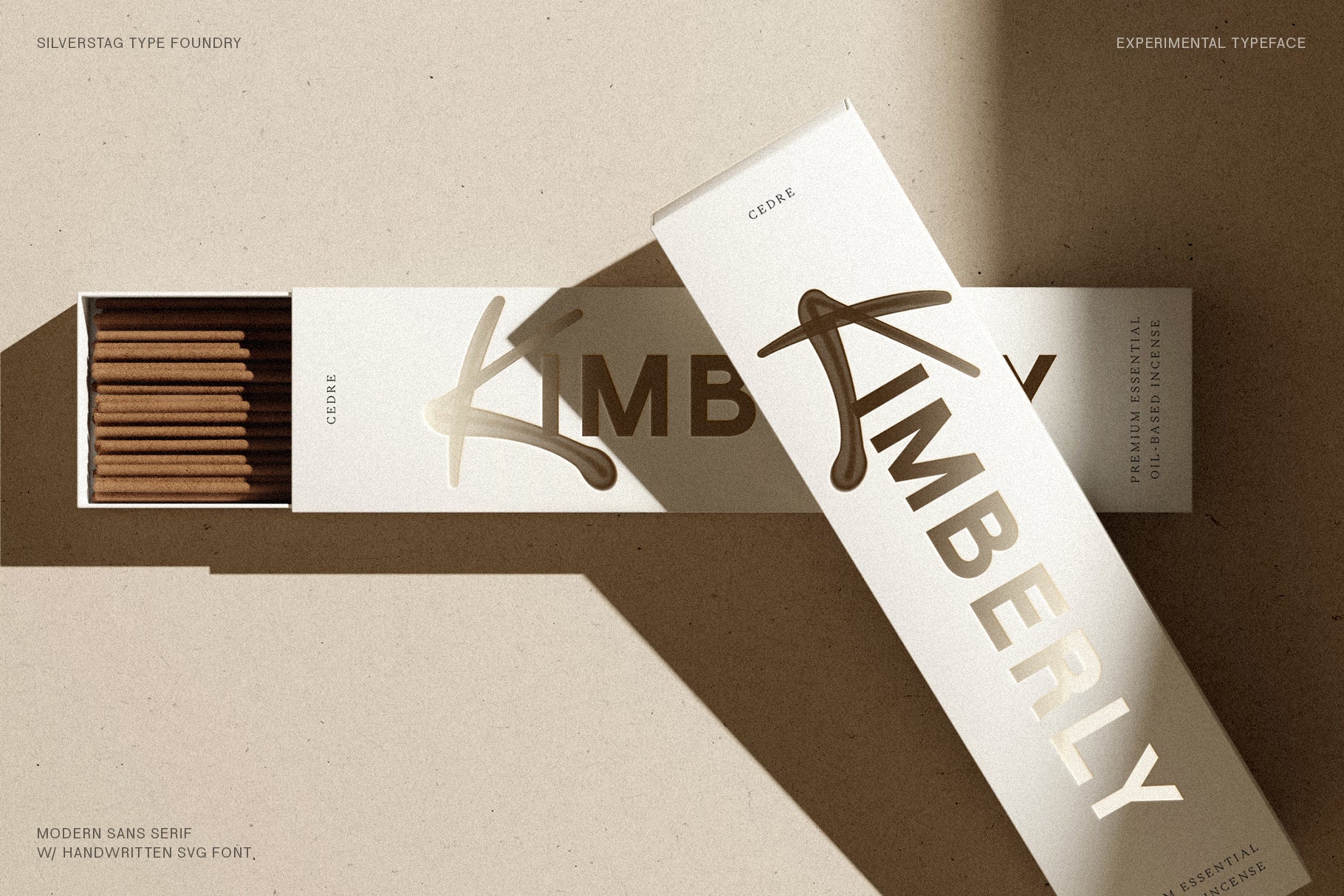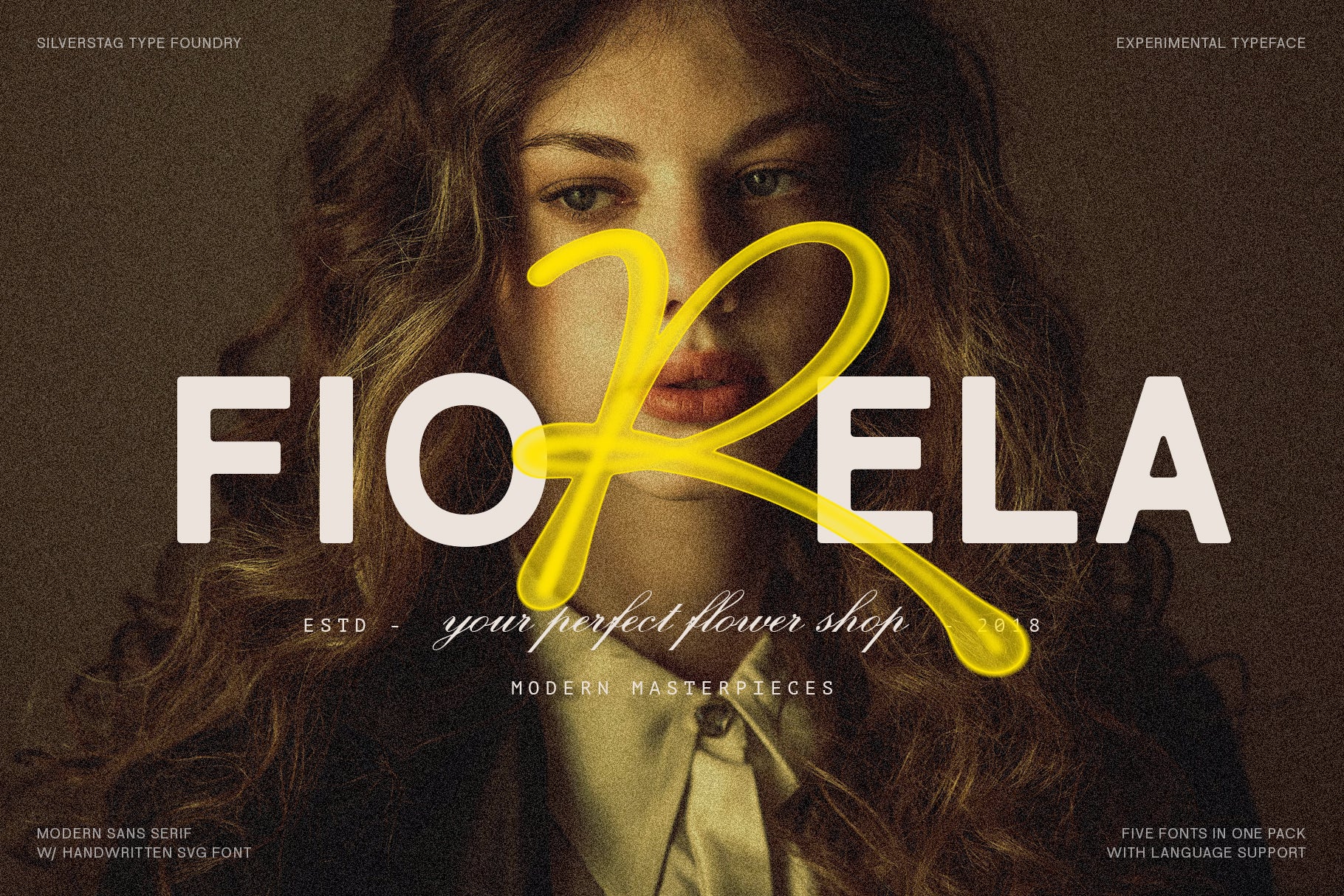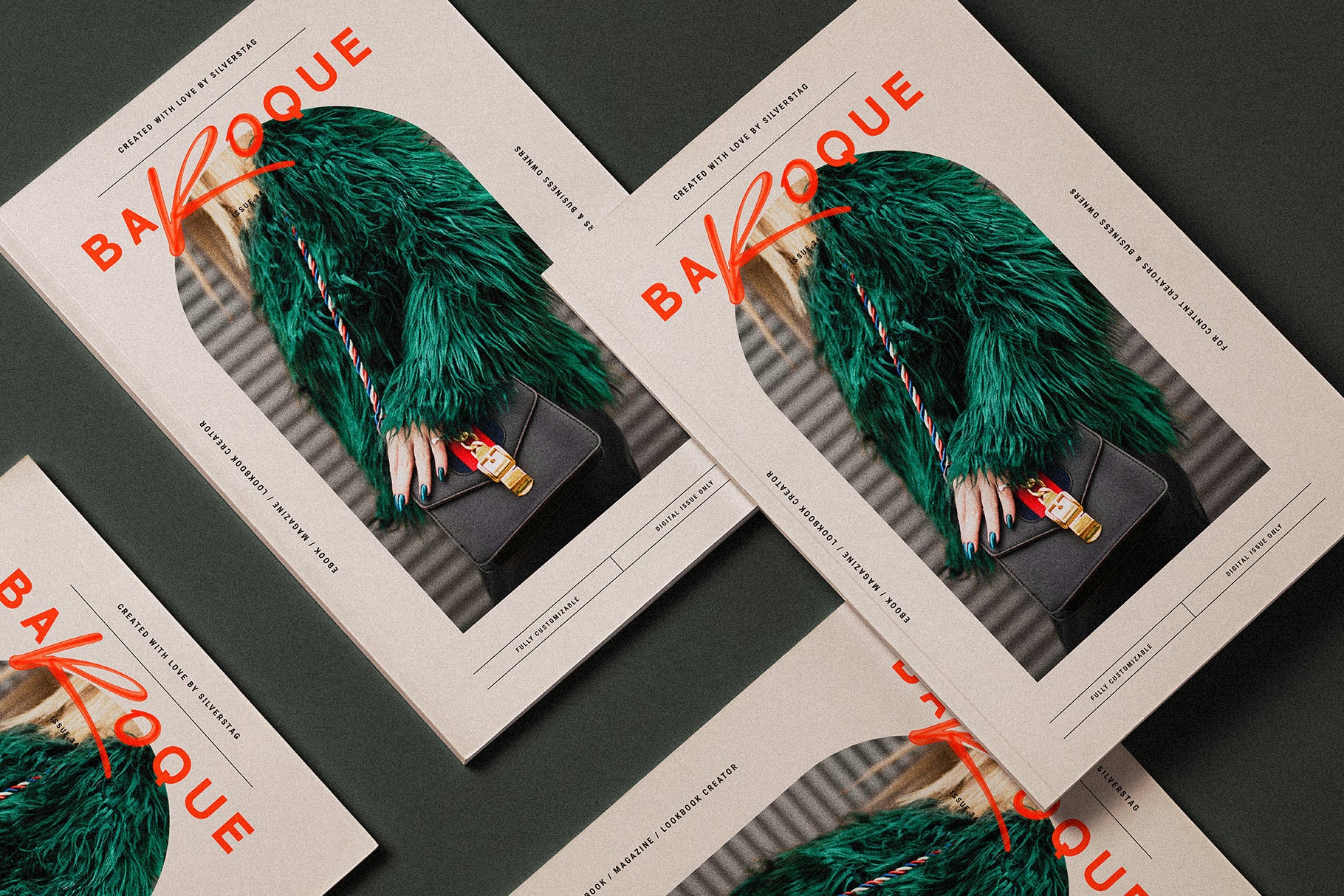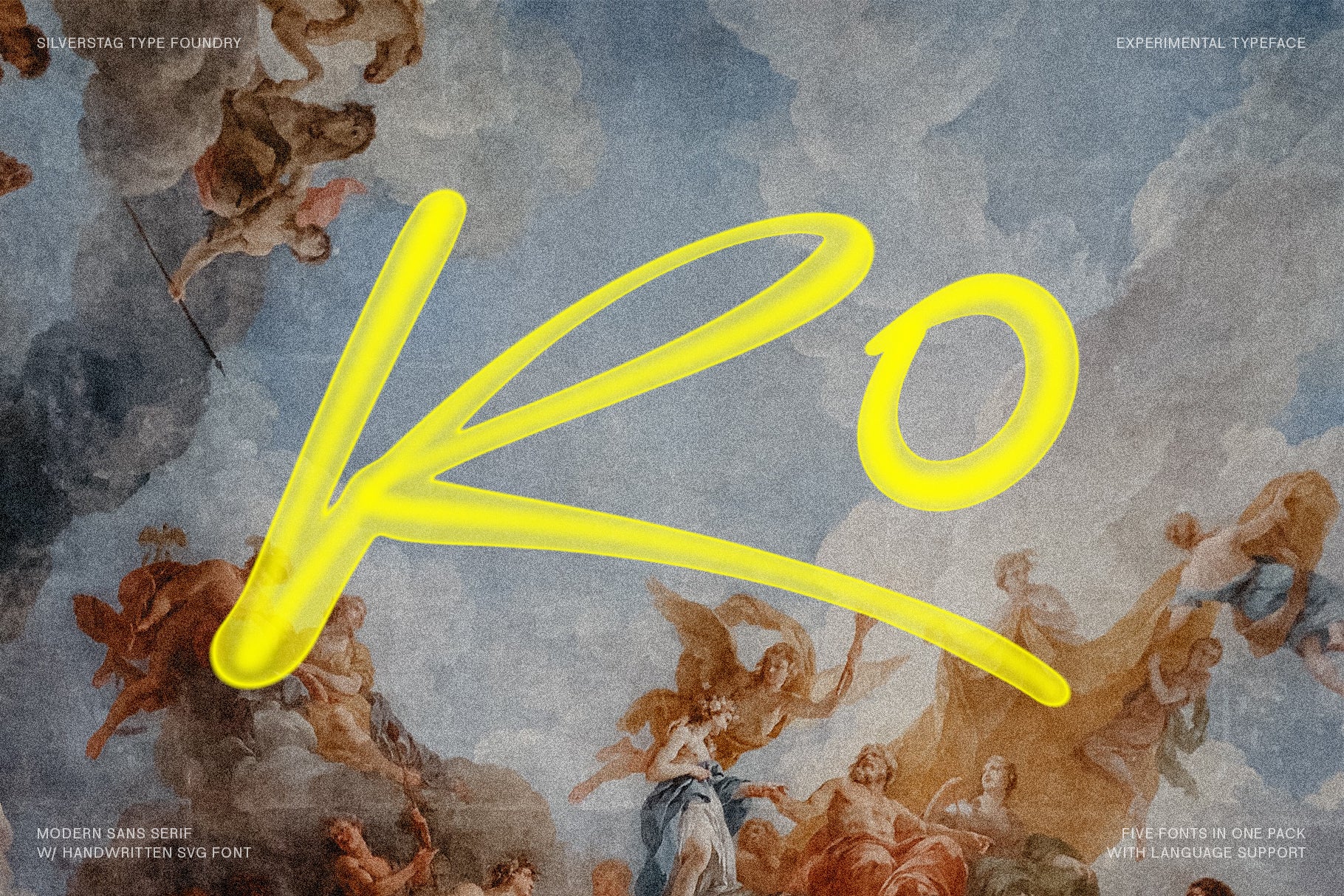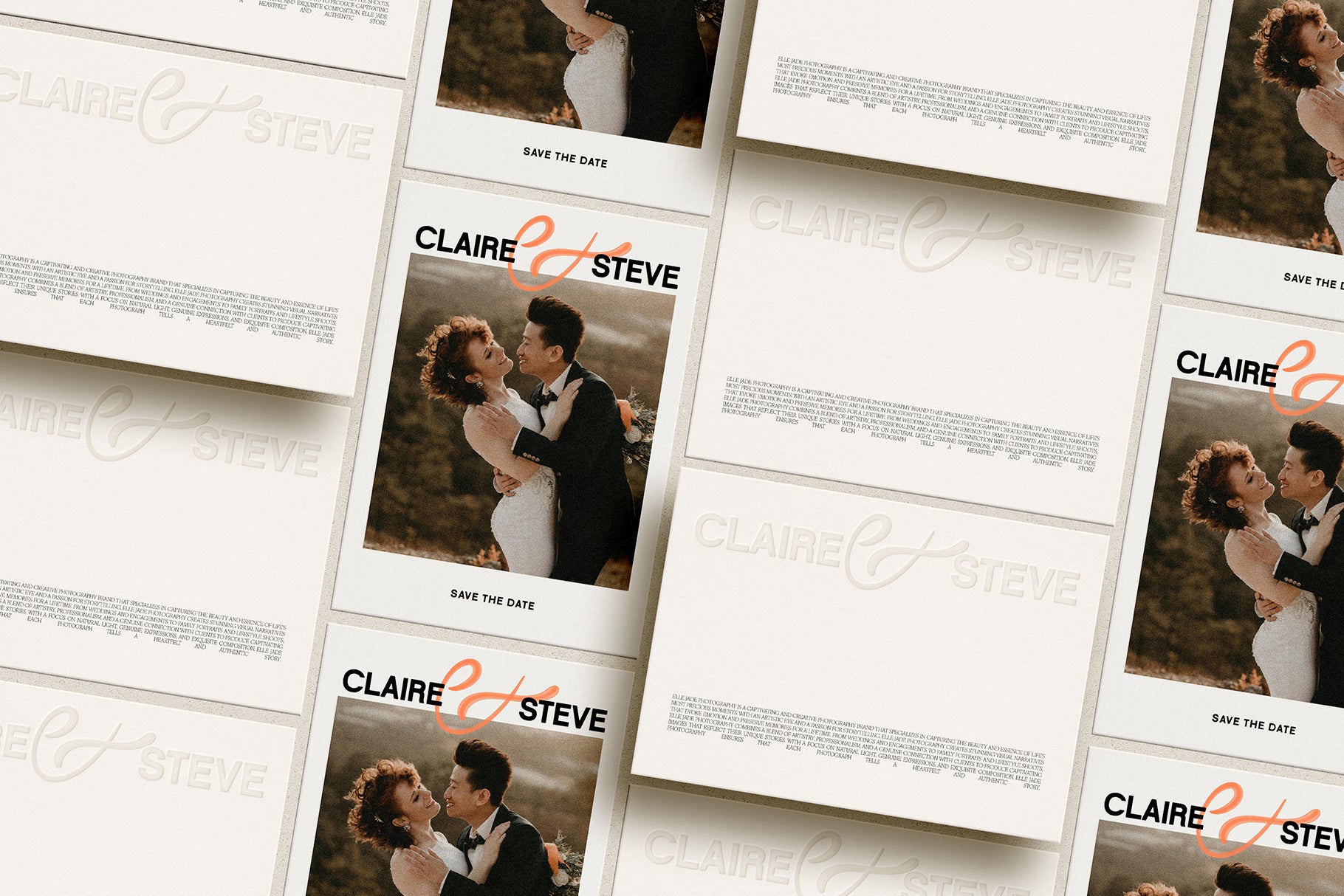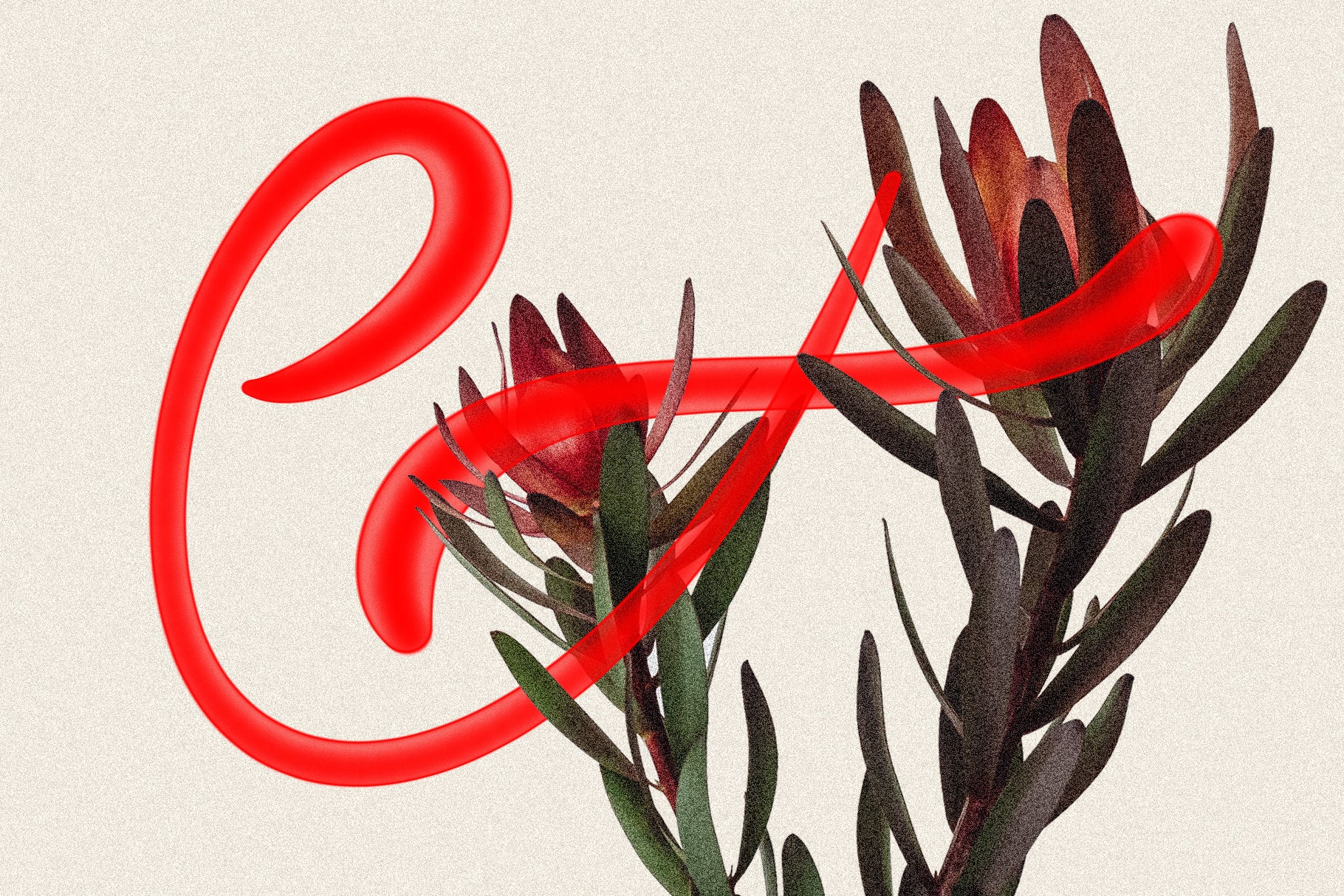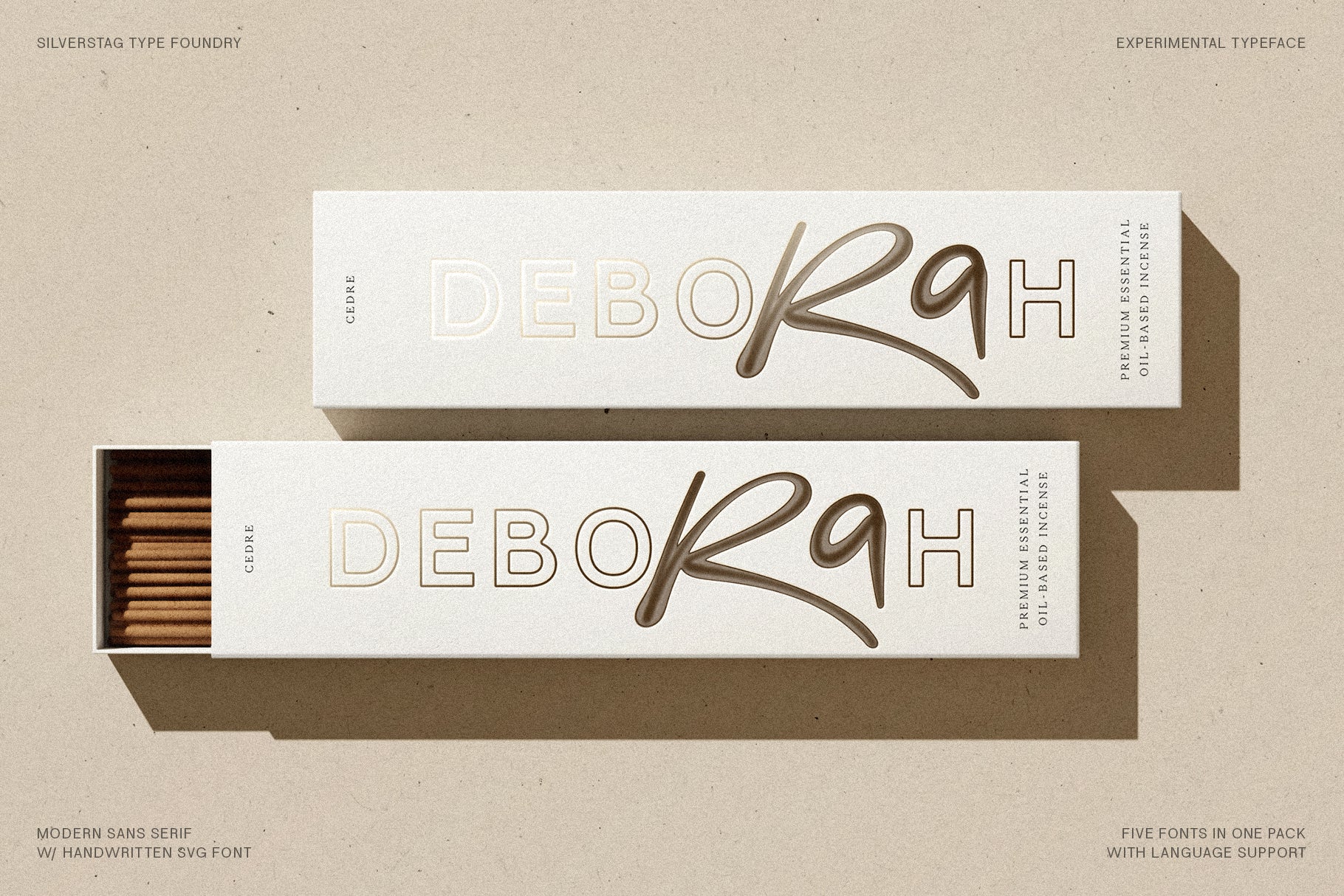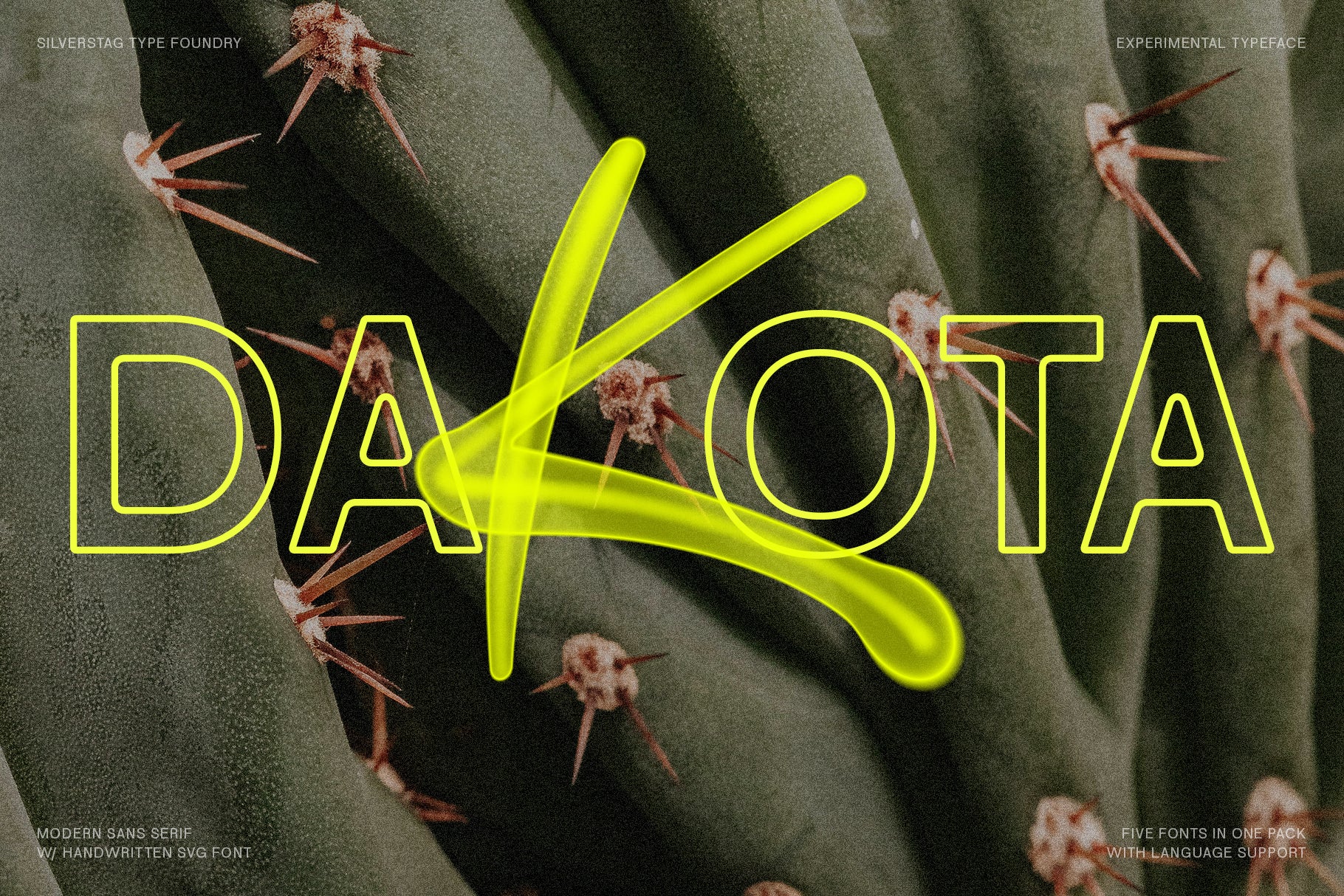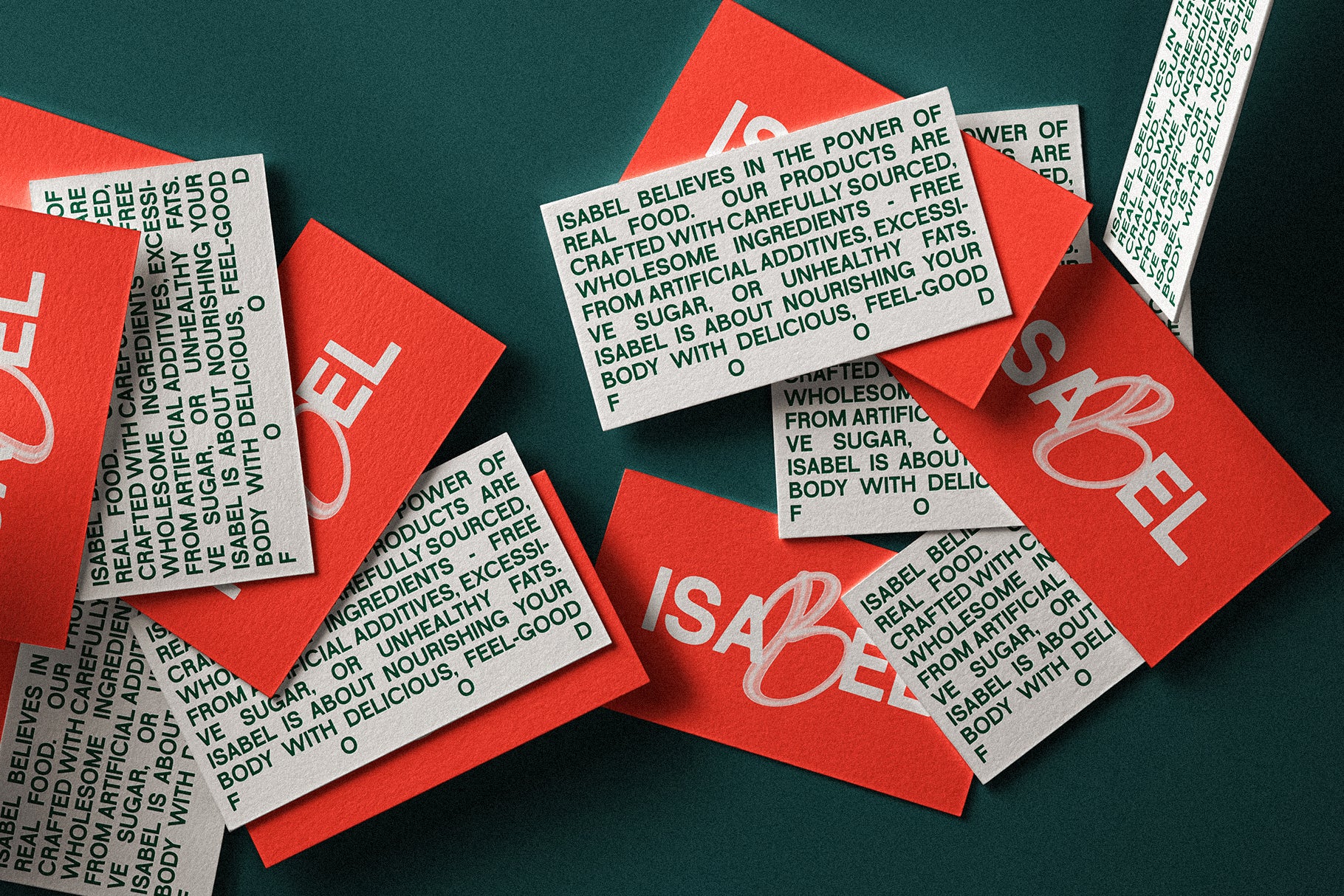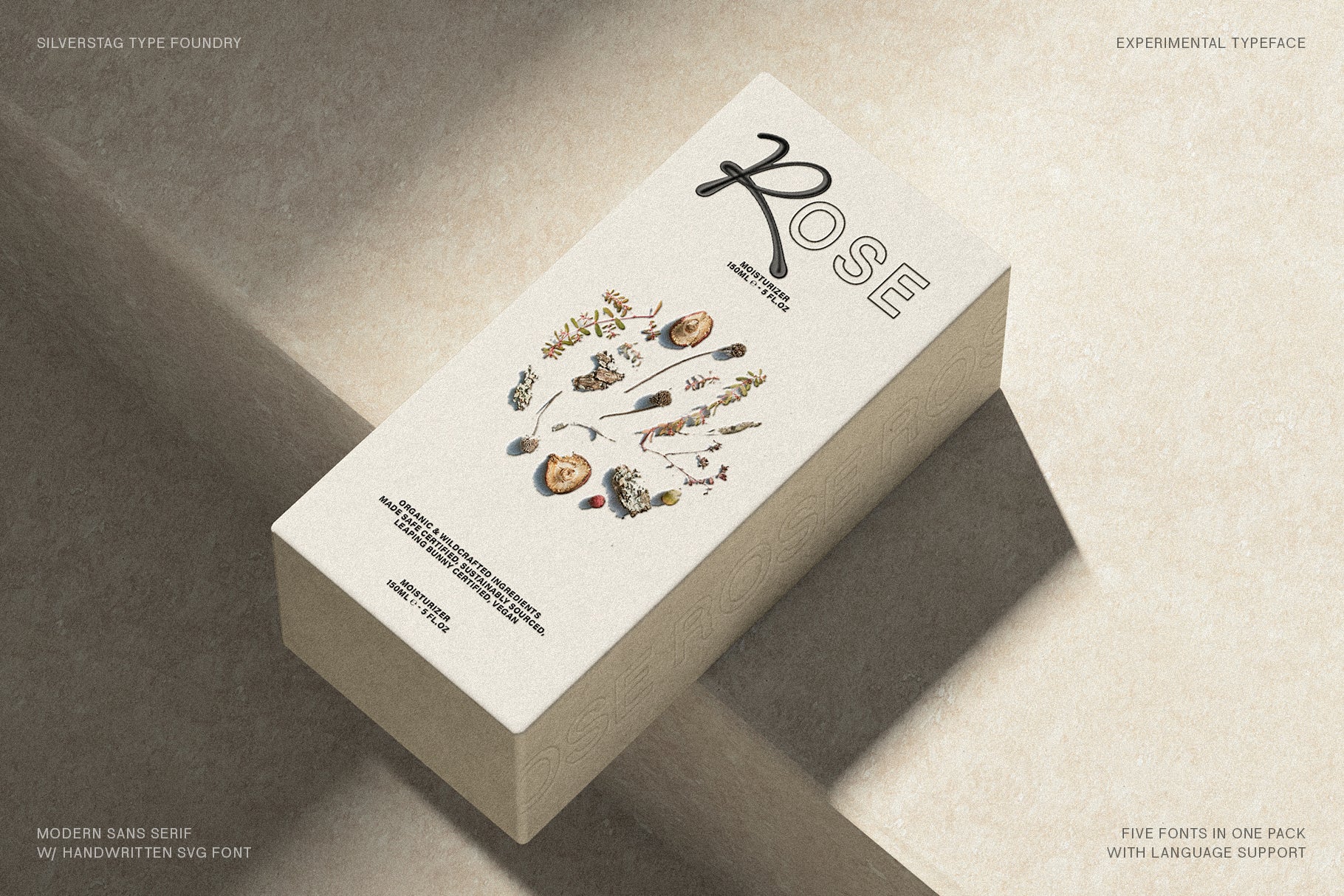
Royal Summer is an experimental display typeface that blends bold modernism with expressive brush lettering. This dynamic font duo includes a clean sans serif in four styles and a hand-drawn SVG brush font designed for vibrant, creative typography that feels both handcrafted and fashion-forward.
The sans serif comes in Regular, Rounded, Regular Outlined, and Rounded Outlined styles—perfect for bold branding, editorial layouts, or stylish product packaging. Each style supports over 90 languages, offering strength, clarity, and adaptability across any project.
Where Royal Summer truly shines is in its SVG brush font, featuring 36 hand-drawn letters that mimic the look and flow of natural brushstrokes. Ideal for expressive headlines, trendy logos, or bold social media content, this brush set brings a tactile, artistic energy to your designs. And for users whose design tools don’t support SVG fonts, Royal Summer also includes PNG versions of each brush letter—making it fully accessible in apps like Canva.